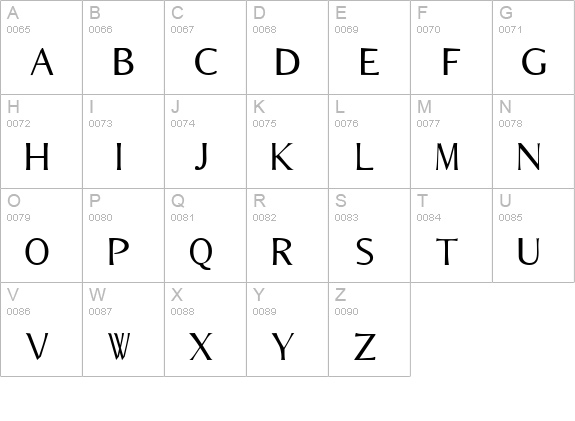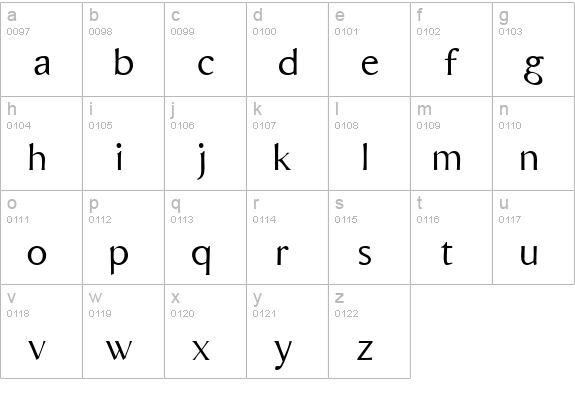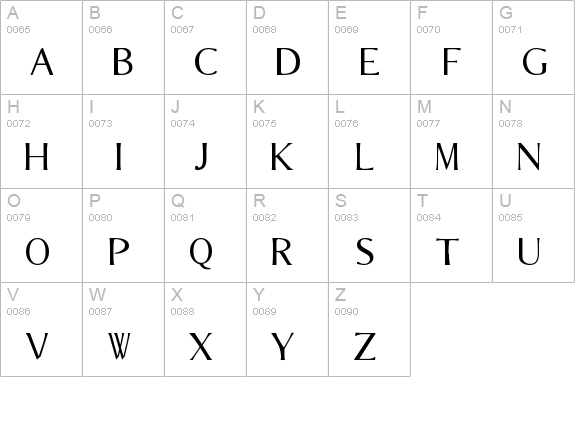
Bordofixed Tryout Font Details
Bordofixed Tryout font is a modern and stylish typeface that exudes confidence and sophistication. Its clean lines and geometric shapes give it a contemporary edge, making it perfect for a wide range of design projects. Whether you're creating a sleek logo, eye-catching posters, or elegant invitations, this font is sure to make a statement. The versatility of Bordofixed Tryout font allows it to be used in various design contexts, from branding to editorial design. Its bold presence on the page commands attention, while its subtle details add a touch of elegance. This font strikes the perfect balance between professionalism and creativity, making it a valuable addition to any designer's toolkit. What's more, Bordofixed Tryout font is available for free download at FontsMarket.com. This means that you can easily access this high-quality font without breaking the bank. So go ahead and elevate your designs with Bordofixed Tryout font today!